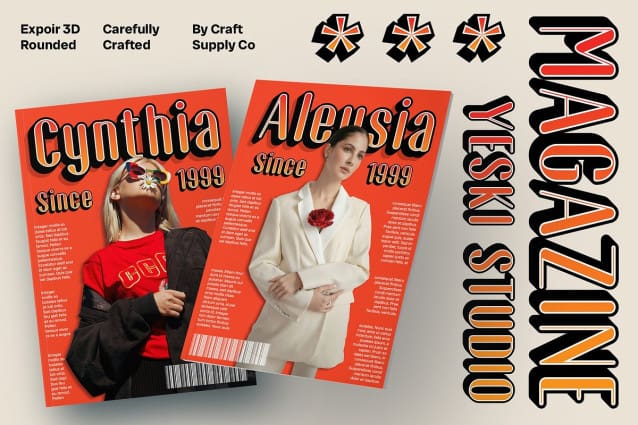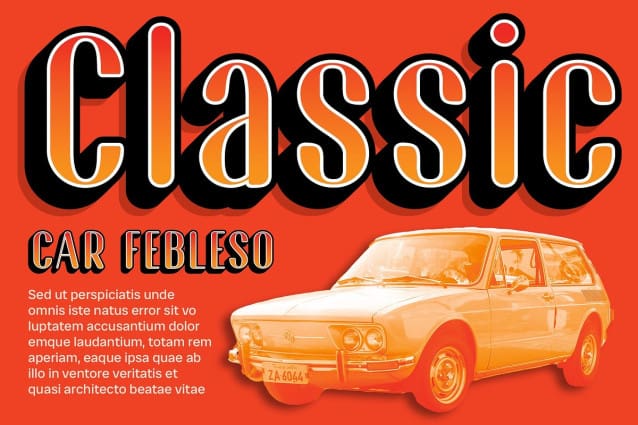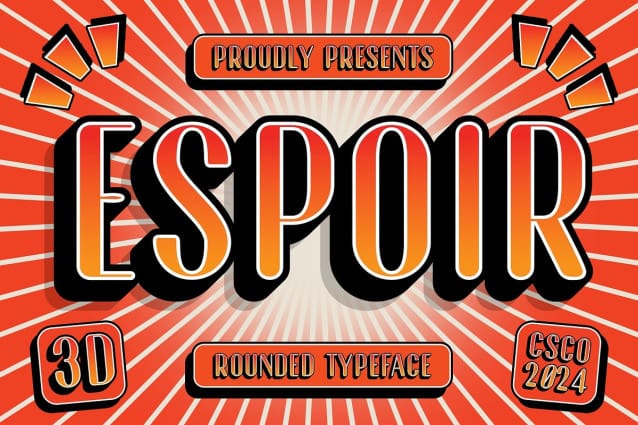
Espoir Rounded 3D Font
Espoir Rounded 3D Font is a modern sans serif font with a rounded shape and a 3D effect, creating a unique combination ideal for showcasing uniqueness in designs. Its soft curves and three-dimensional elements add a playful yet sophisticated touch, perfect for logos, branding, and other projects that require a modern and distinctive look.
With its smooth lines and three-dimensional appearance, Espoir Rounded 3D offers a fresh take on sans serif fonts. The rounded shape and 3D effect create a dynamic and engaging look, perfect for designs that demand attention and convey a sense of modernity and creativity.
Whether you’re designing a quirky packaging or creating a fun website, Espoir Rounded 3D is sure to make your designs stand out. Its rounded shape and 3D effect make it perfect for showcasing uniqueness and adding a touch of playfulness to any design.
Despite its distinctive appearance, Espoir Rounded 3D is versatile and easy to use. The font works well in both large and small sizes, making it suitable for a variety of applications, from headlines and banners to body text and more. With its blend of rounded shape and 3D effect, Espoir Rounded 3D adds a unique and dynamic element to any design.